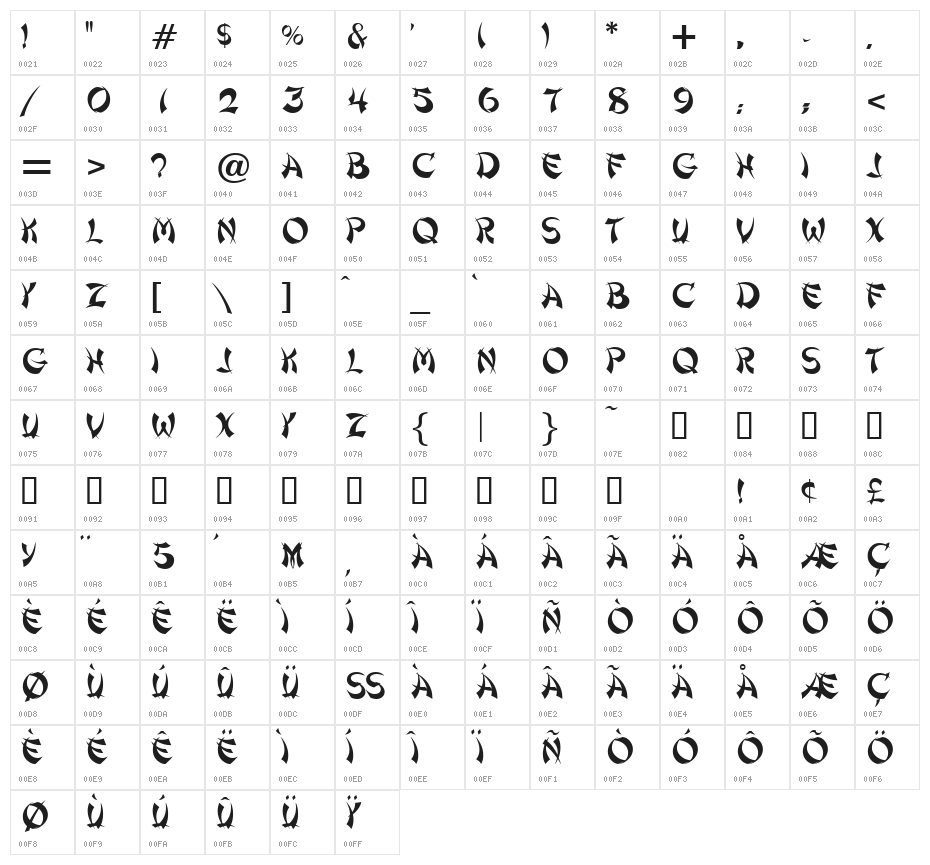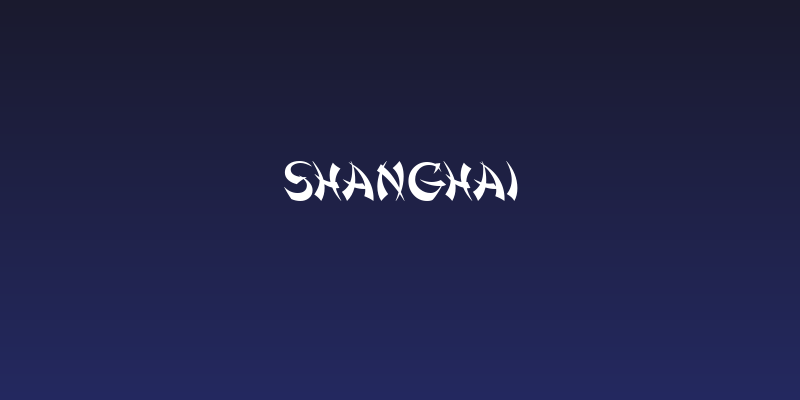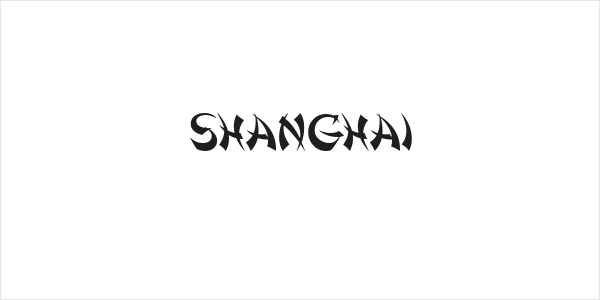
Shanghai Font
Shanghai Description
This font features a bold and striking design with sharp, angular edges and a distinct gothic influence. The characters are highly stylized, with pointed serifs and an aggressive, edgy appearance. The uppercase and lowercase letters maintain a consistent style, creating a cohesive look across the alphabet. The numbers and special characters follow the same design principles, ensuring uniformity throughout. This font's unique aesthetic makes it stand out, ideal for projects that require a dramatic and impactful visual presence.
| Overall Style | Gothic, Dramatic |
| Proposed Projects | Ideal for album covers, posters, branding for edgy or alternative products, and any design requiring a bold statement. |